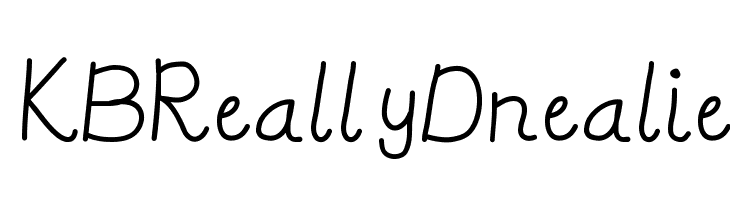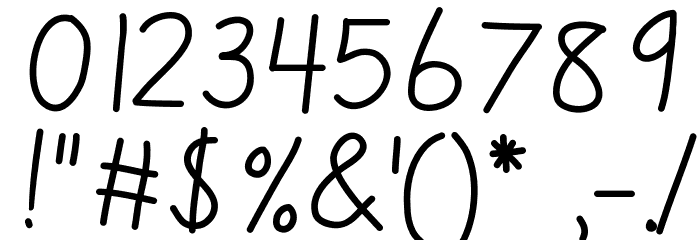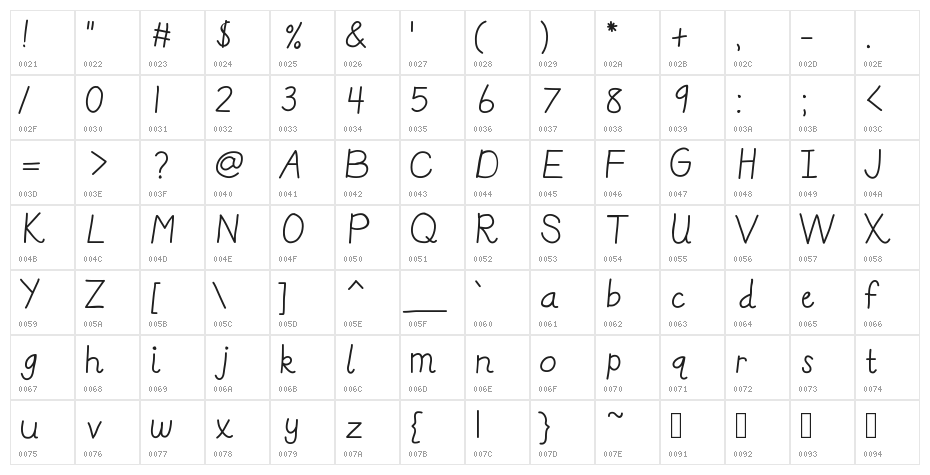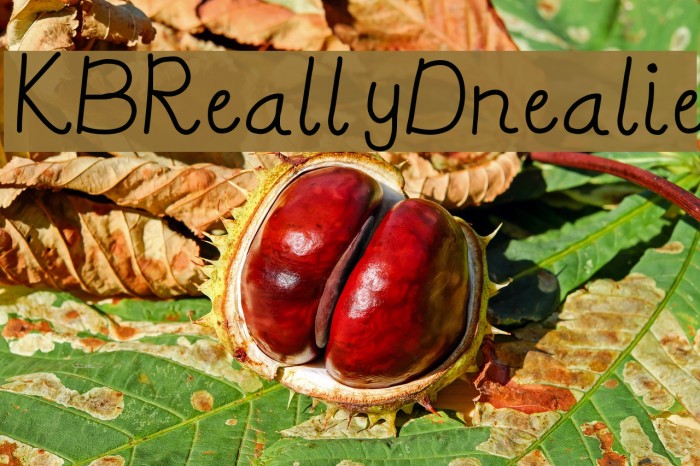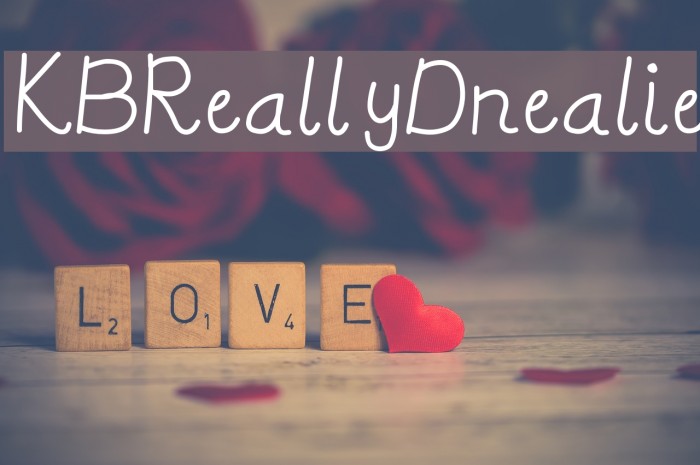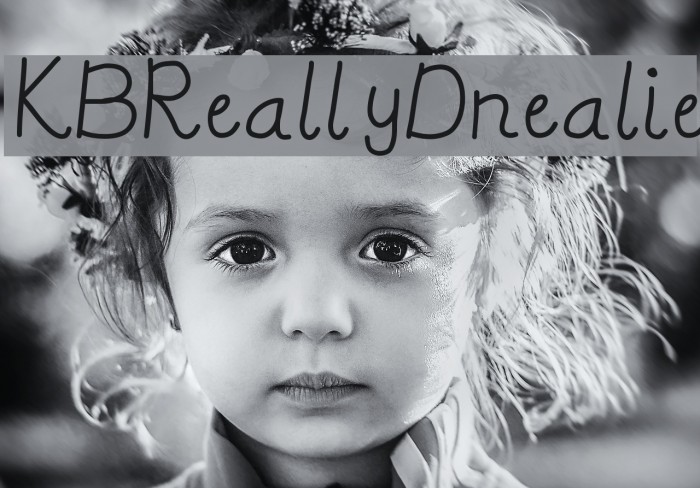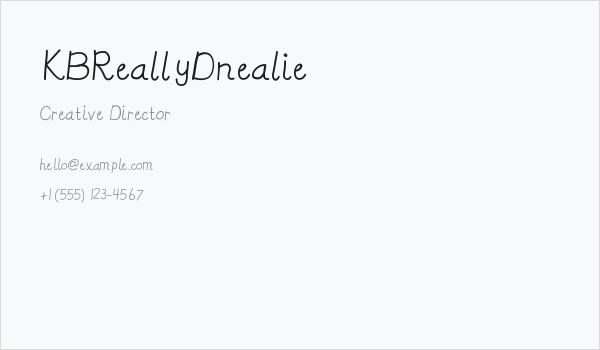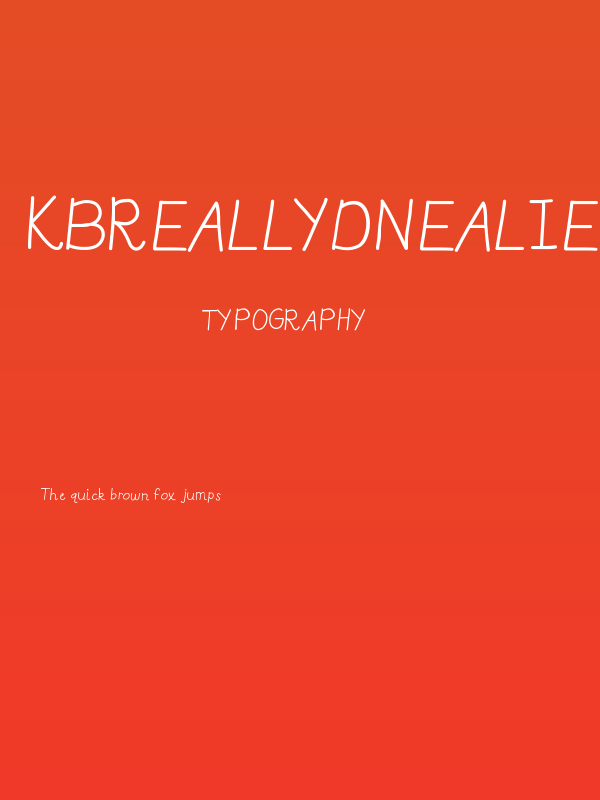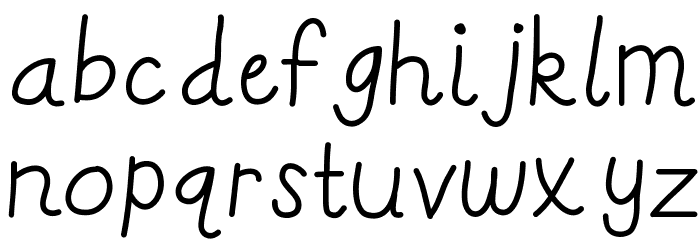
KBReallyDnealie Font
KBReallyDnealie Description
This font exhibits a playful and casual handwritten style, characterized by its smooth, flowing curves and slightly uneven baseline, which gives it a natural and organic feel. The uppercase letters are tall and slender, maintaining a consistent height, while the lowercase letters are more rounded and varied in size, adding to the font's informal charm. The numerals are clear and legible, with a slight tilt that matches the overall style. Special characters are well-integrated, maintaining the same whimsical and approachable aesthetic. The font's overall appearance is friendly and inviting, making it suitable for projects that require a personal touch.
| Use Case | Headlines, Informal text, Personal projects |
| Proposed Projects | Ideal for greeting cards, children's books, personal blogs, and informal branding. |